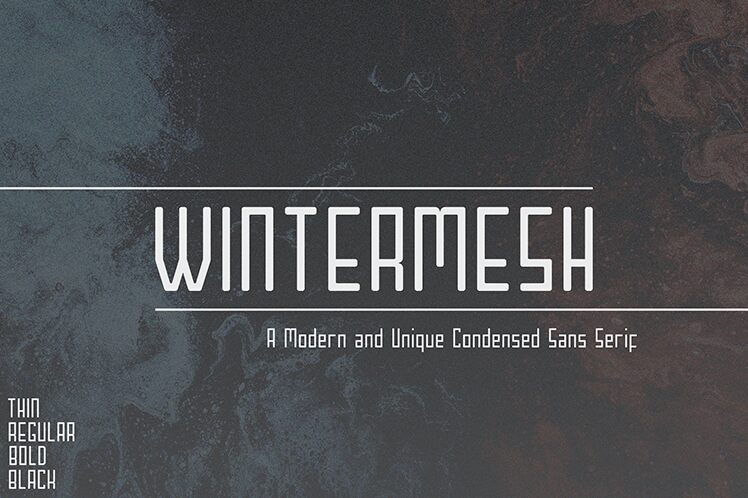
Wintermesh Black is the perfect choice for projects that require a modern and futuristic touch. Designed by Shanaya Studio, this techno sans serif font boasts a semi-light weight and an extra-condensed width, making it ideal for titles, headers, and branding applications. Its bold letterforms command attention while its sleek lines convey elegance and sophistication. Wintermesh Black is perfect for use in technology-related projects such as websites, apps, or video games but also works well in fashion design or advertising. Embrace the future with Wintermesh Black – the epitome of contemporary design!
Wintermesh